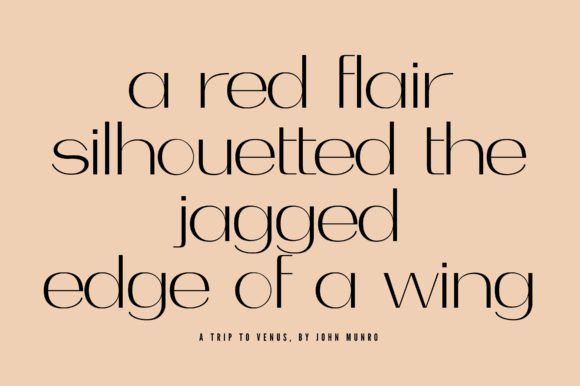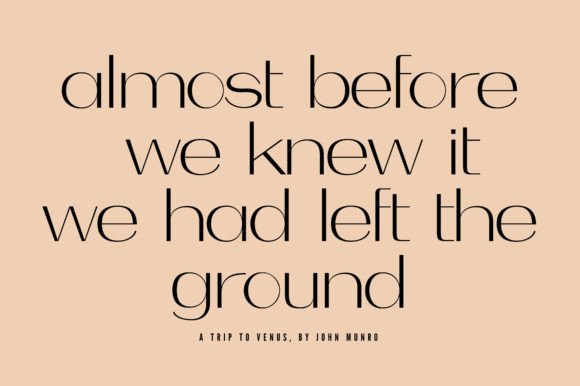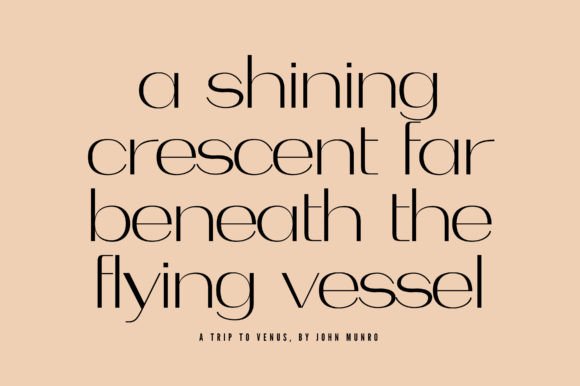
Bodhi Font
Introducing Bodhi, the epitome of sophistication in the world of typography. This chic and elegant sans serif font is designed to make a lasting impression on your audience. With its minimalist aesthetic, Bodhi is the perfect choice for modern designs that require a touch of timeless elegance.With over 604 glyphs, Bodhi offers an extensive range of characters, including uppercase and lowercase letters, numerals, symbols, and punctuation marks. This impressive glyph count ensures that you’ll have everything you need to create stunning designs that stand out from the crowd.Bodhi is more than just a beautiful font; it also offers multi-lingual support. Whether you’re creating designs in English, French, German, or any other language, Bodhi has got you covered. With its wide range of language support, Bodhi is perfect for businesses and designers who want to reach a global audience.This versatile font is suitable for a variety of design projects, from branding and advertising to website design and packaging. Its clean and modern look will elevate any project to new heights, making it the go-to choice for designers who want to create a memorable visual experience for their audience.Overall, Bodhi is a must-have font for anyone who values sophistication, elegance, and simplicity in their designs. With its extensive glyph count and multi-lingual support, this sans serif font is sure to impress and make a lasting impression. Try it out today and see the difference it can make in your designs!